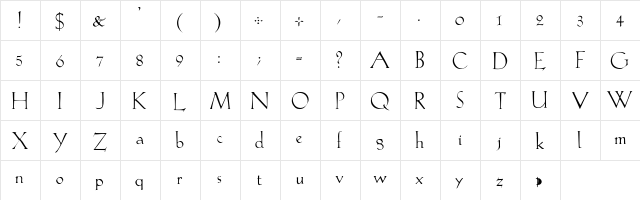
Gabel-Light Regular
Design Context for Gabel-Light Typeface
Gabel-Light offers clean, dependable letterforms without strong stylistic allegiance, making it a practical choice for designers who need flexibility. Its slender proportions lend an understated elegance to any composition.